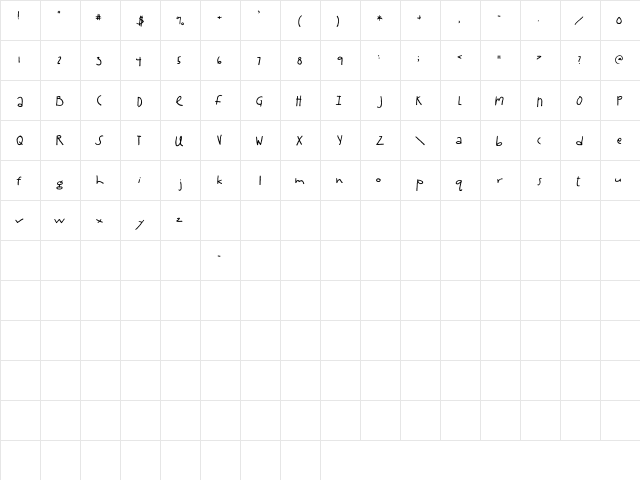
Design Context for 2Peas Spaghetti Typeface
2Peas Spaghetti is a composed and adaptable typeface that performs quietly and consistently across a wide range of design contexts.